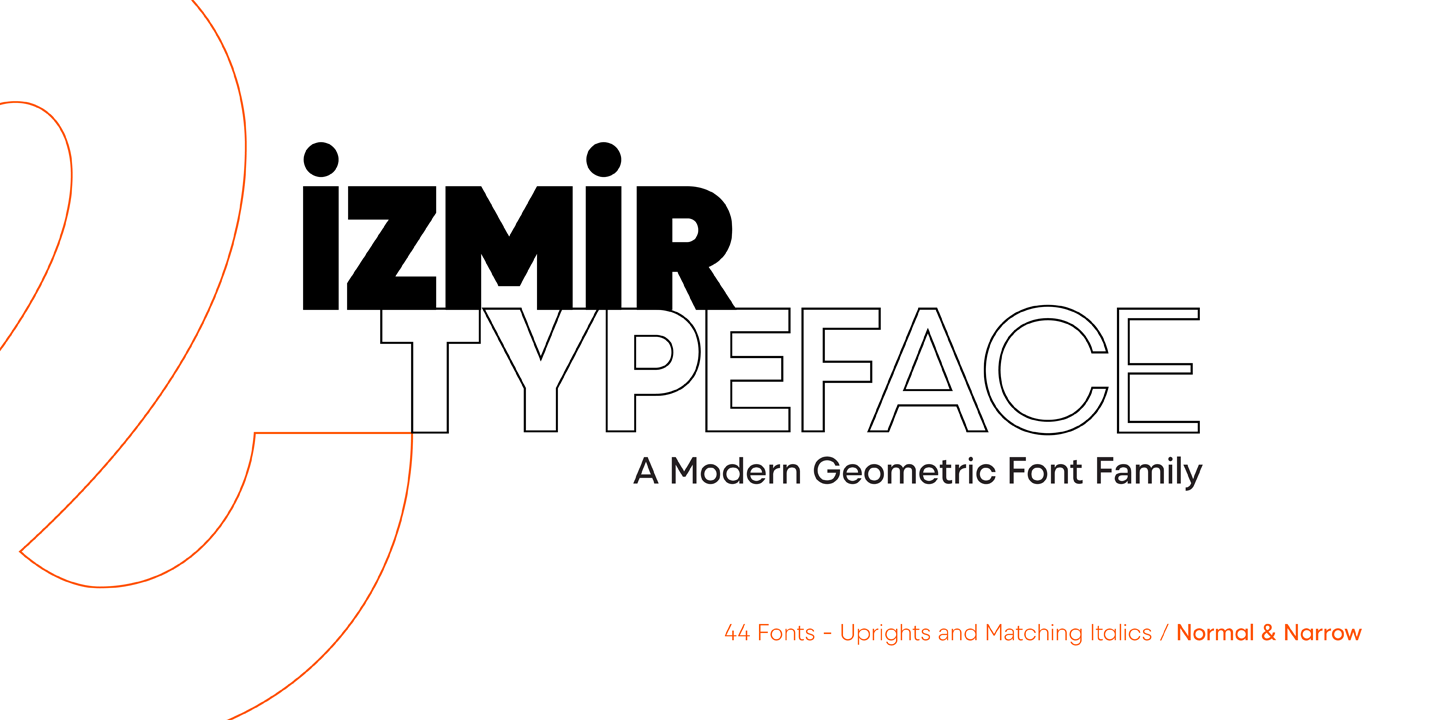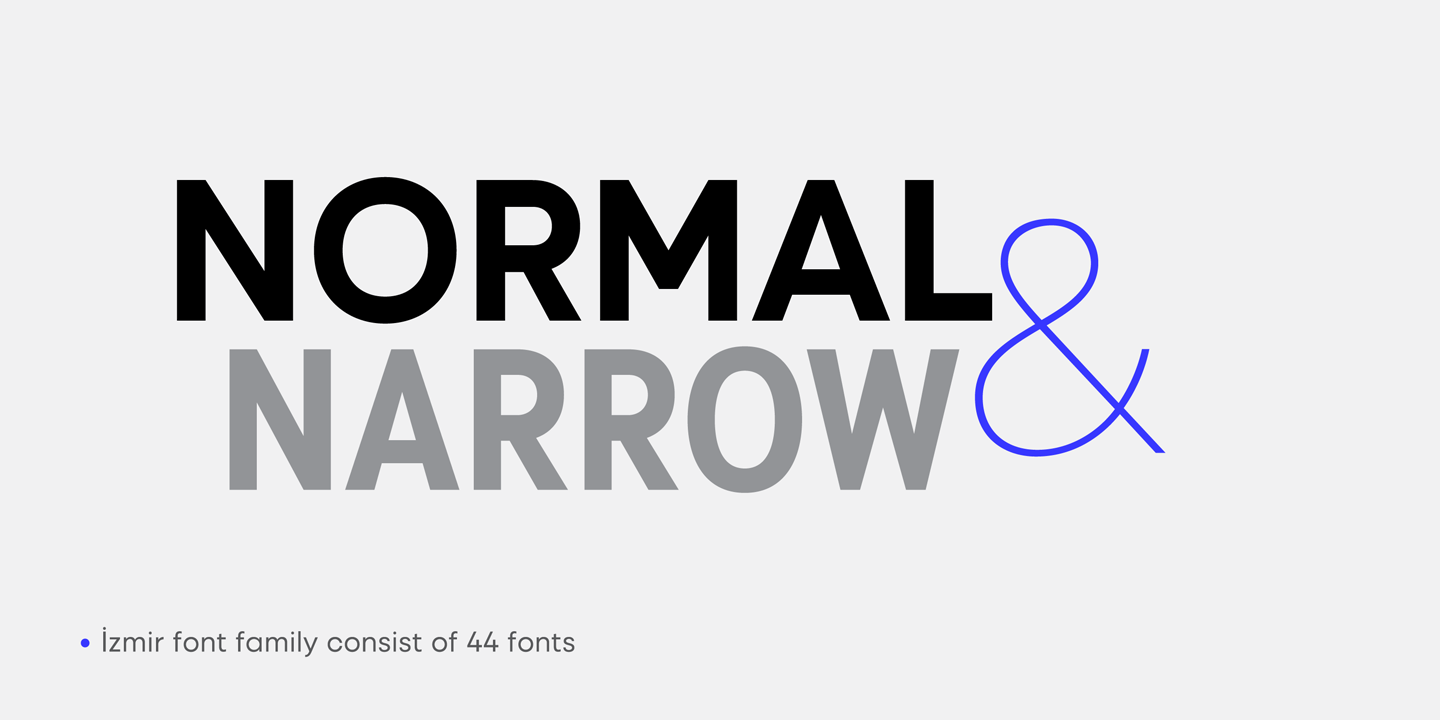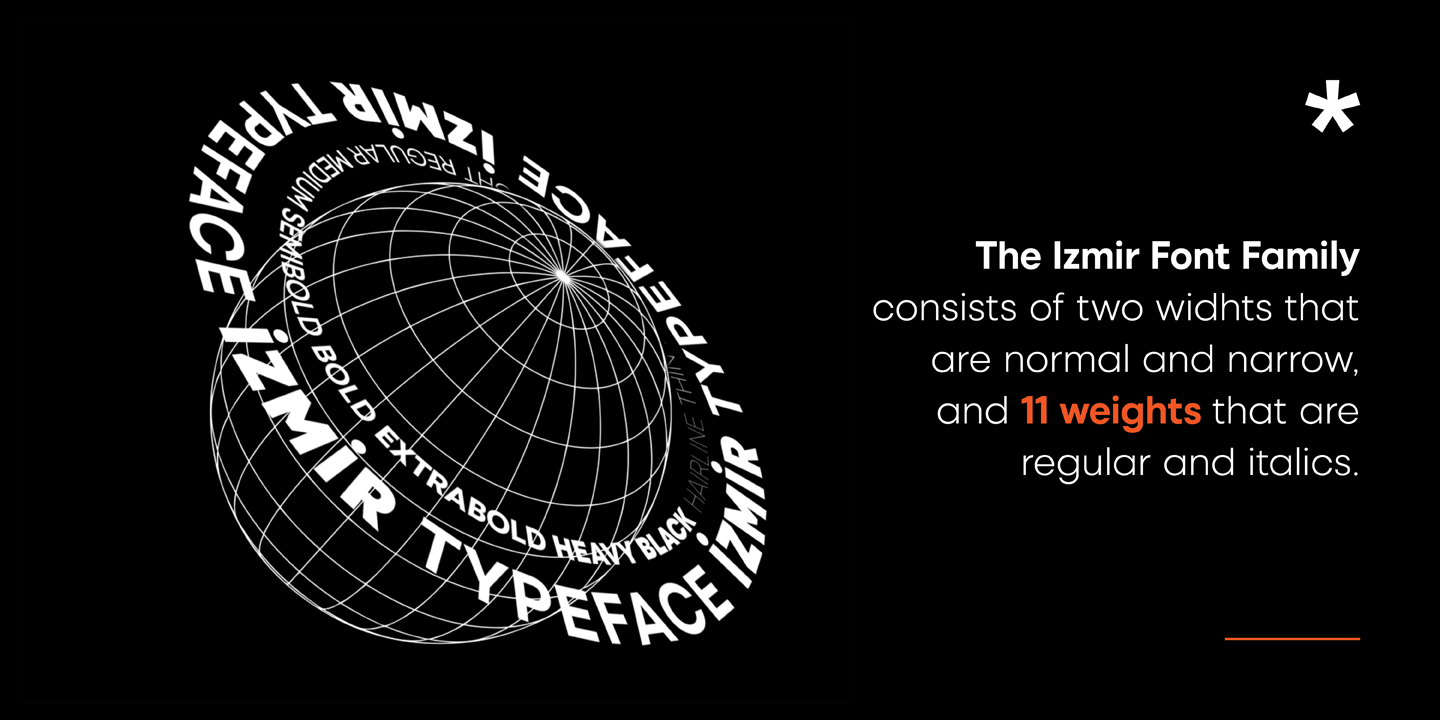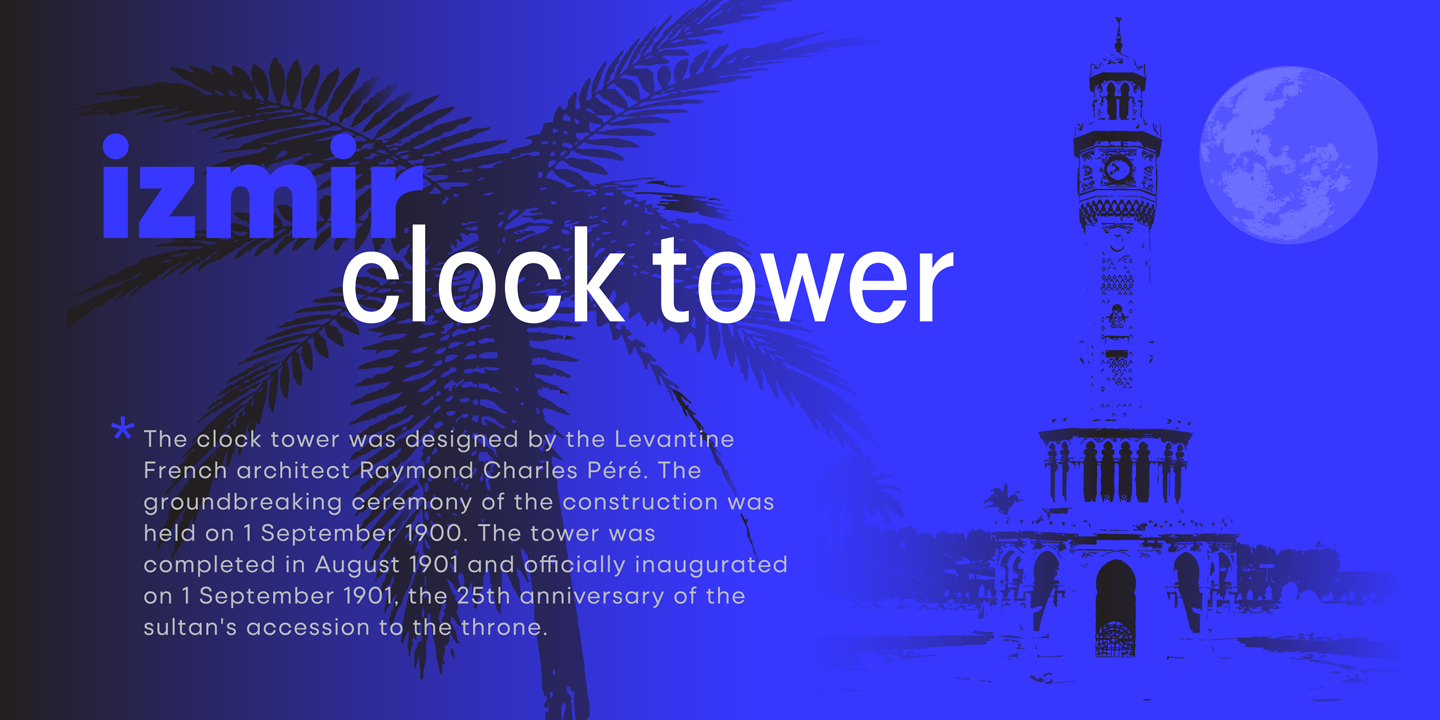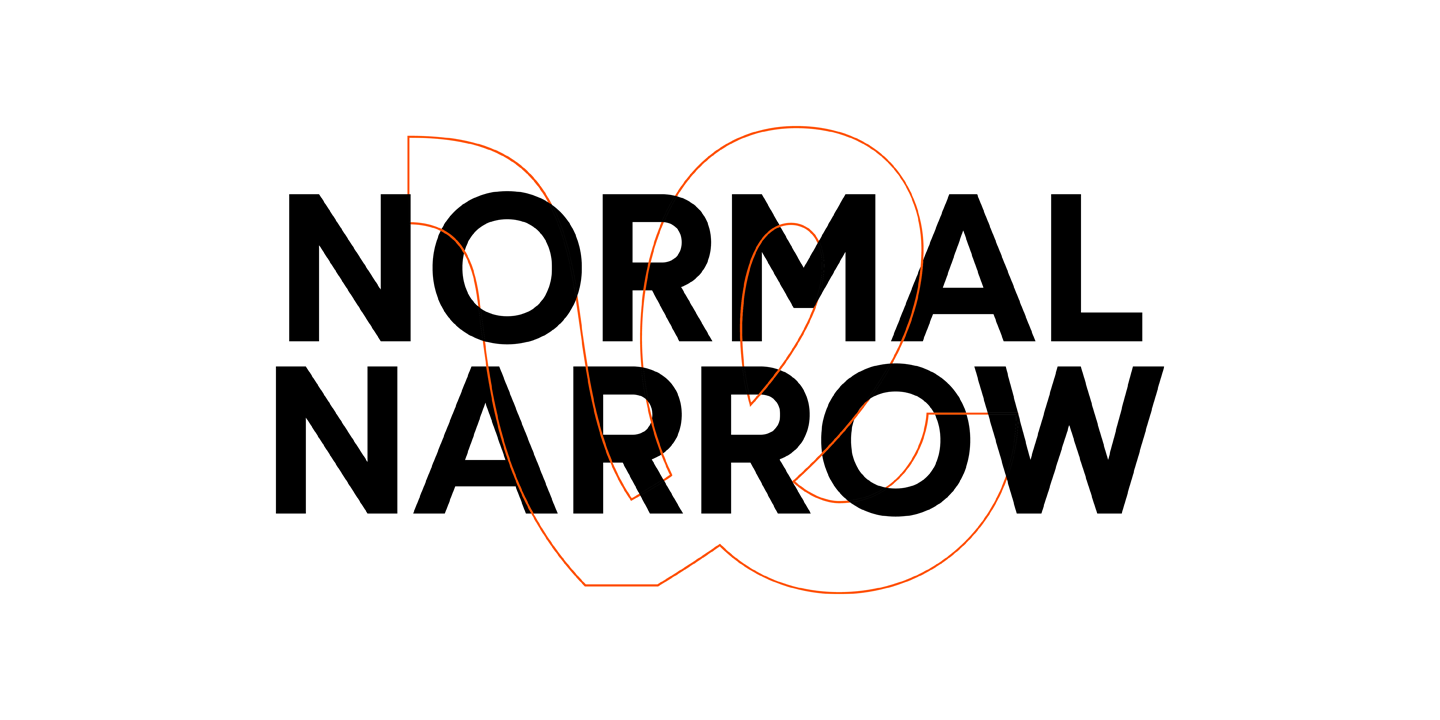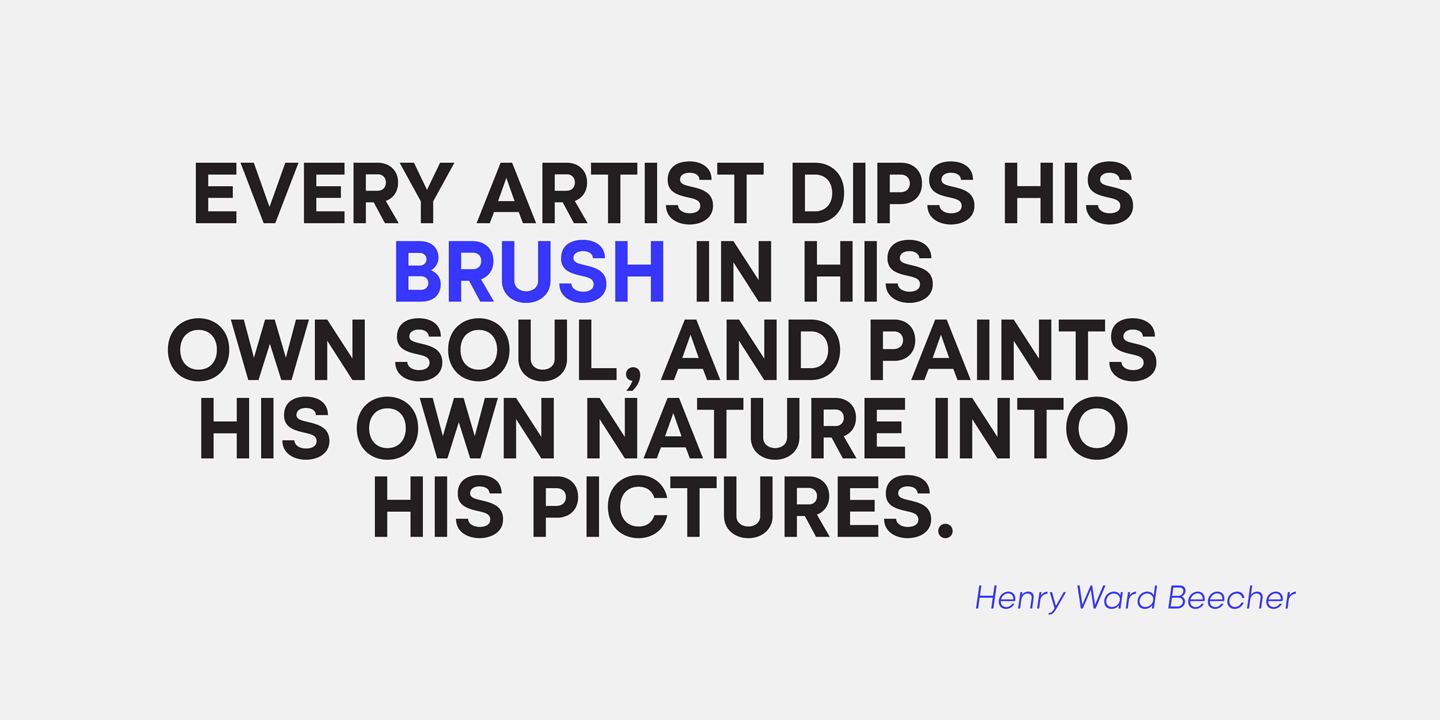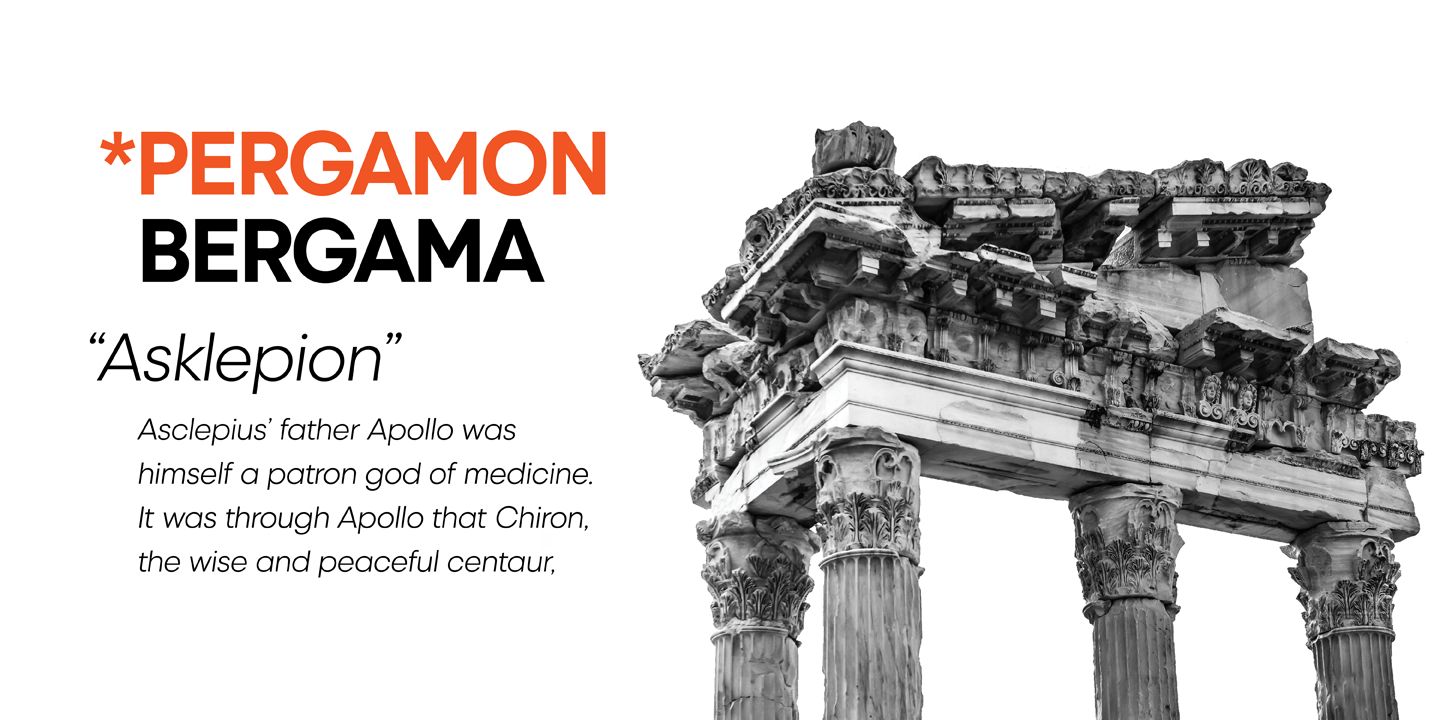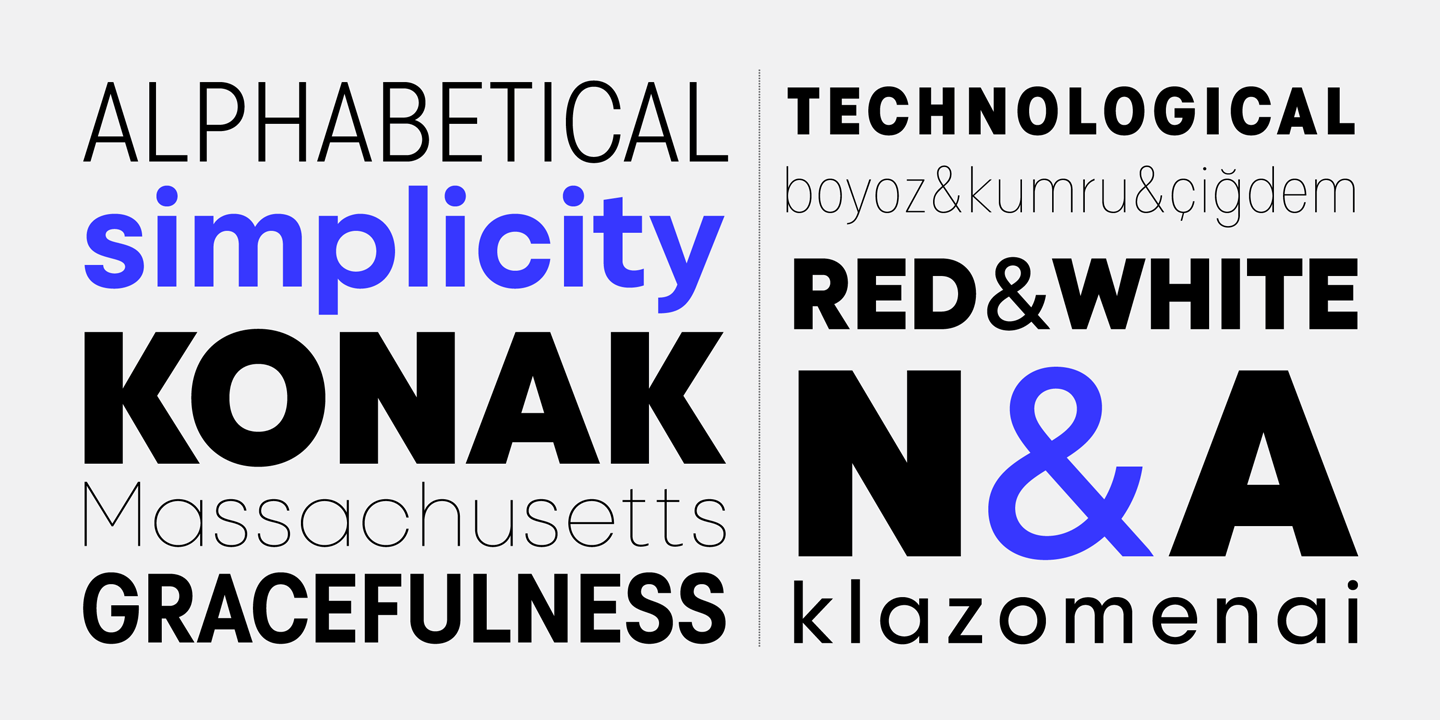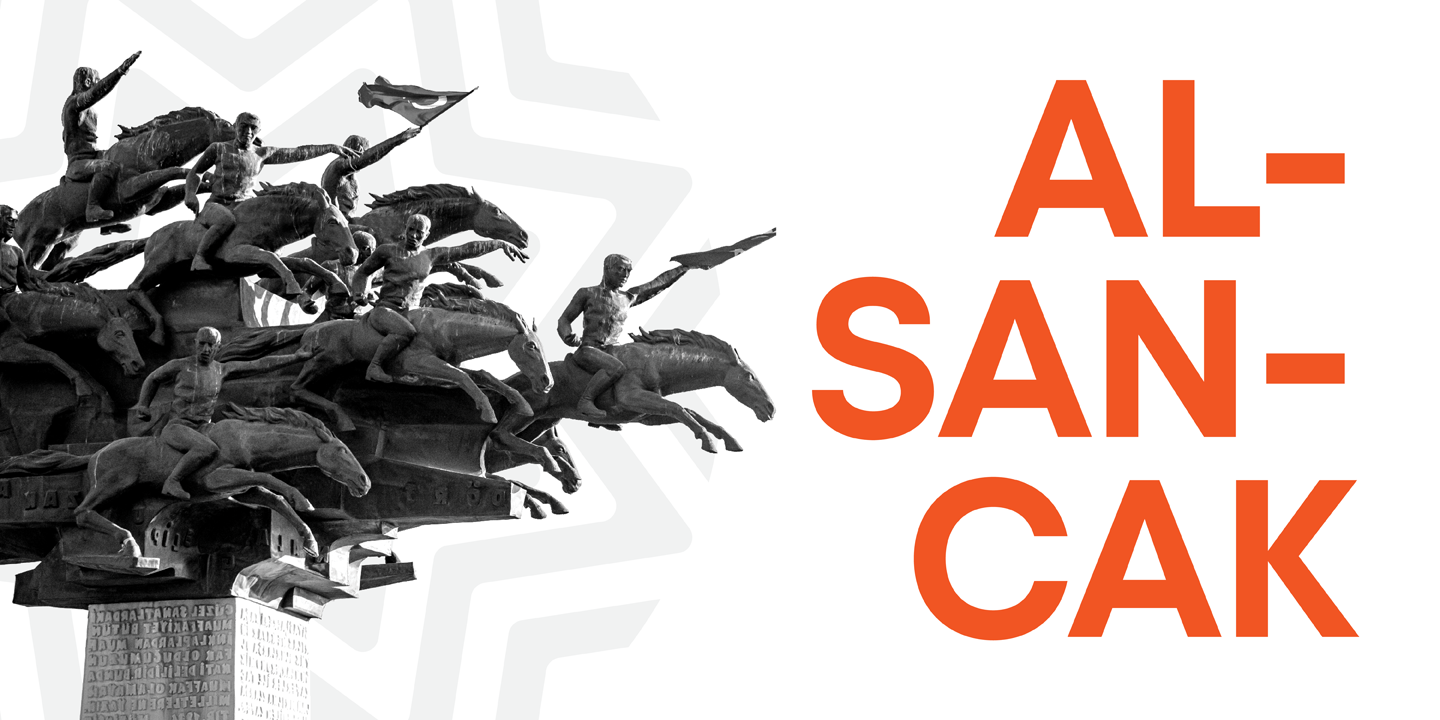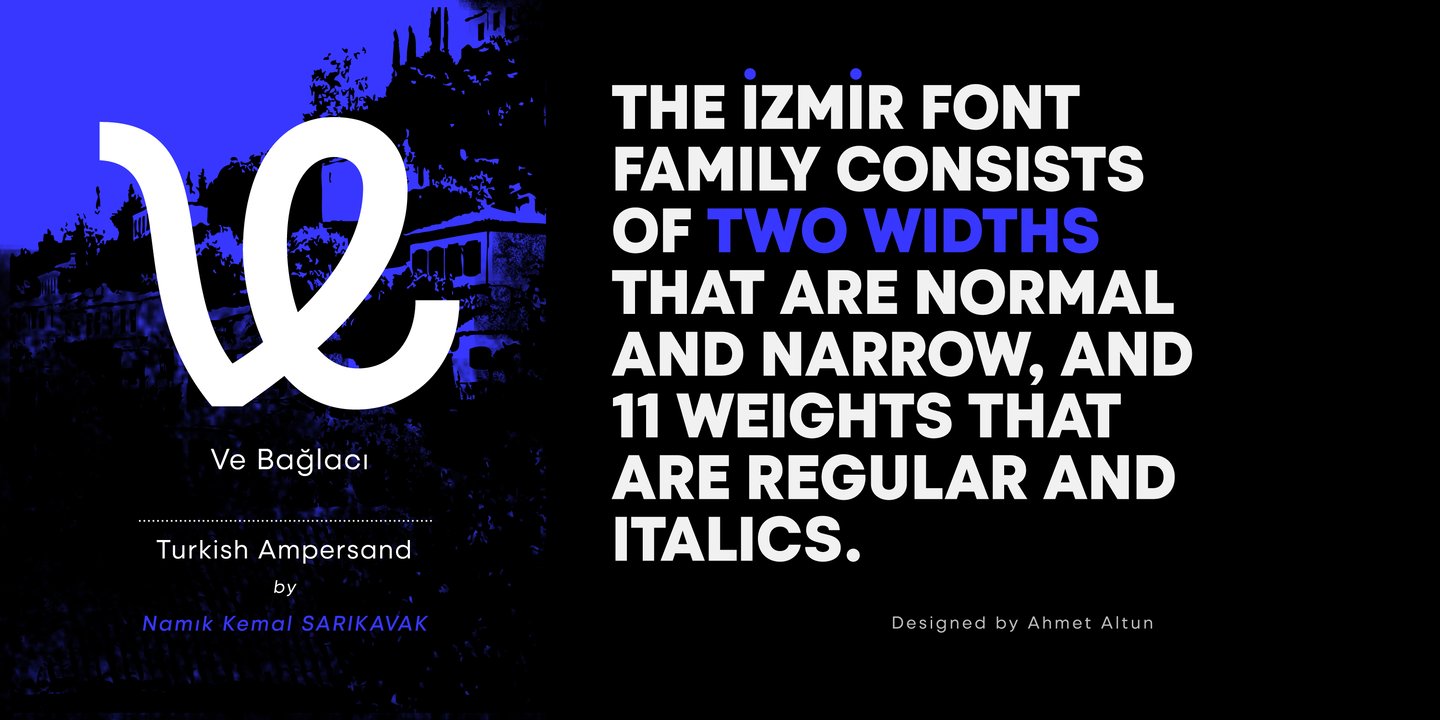
Izmir is a modern, geometric font family. Izmir font family consists of 44 fonts in two widths, normal and narrow where each width consists of regular and italic styles in 11 weights. Each weight is equipped with useful OpenType features. A local ampersand has been added to use in Turkish in normal weights and italics. The combination of normal and narrow weights can be an excellent choice for any graphic design and display use.